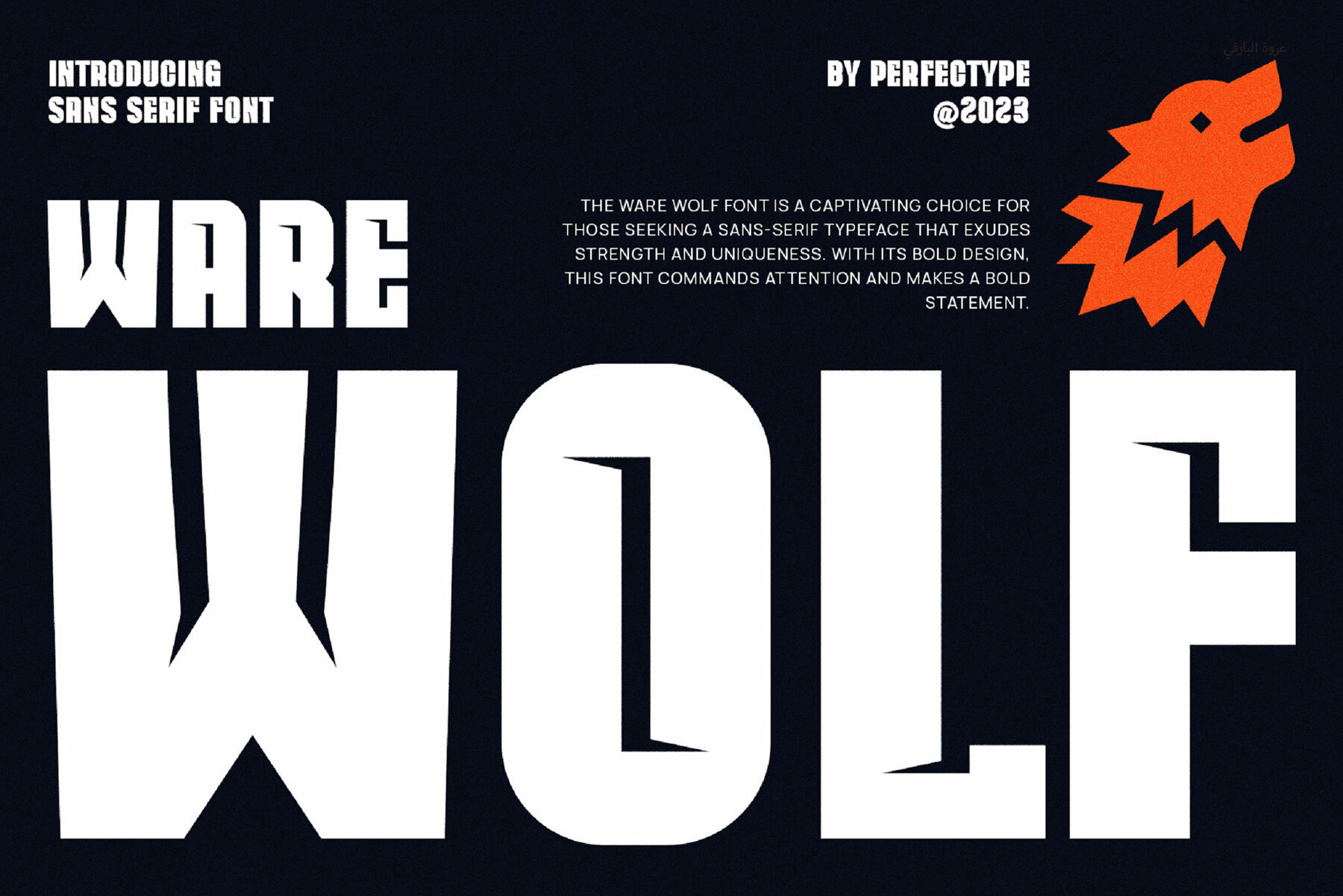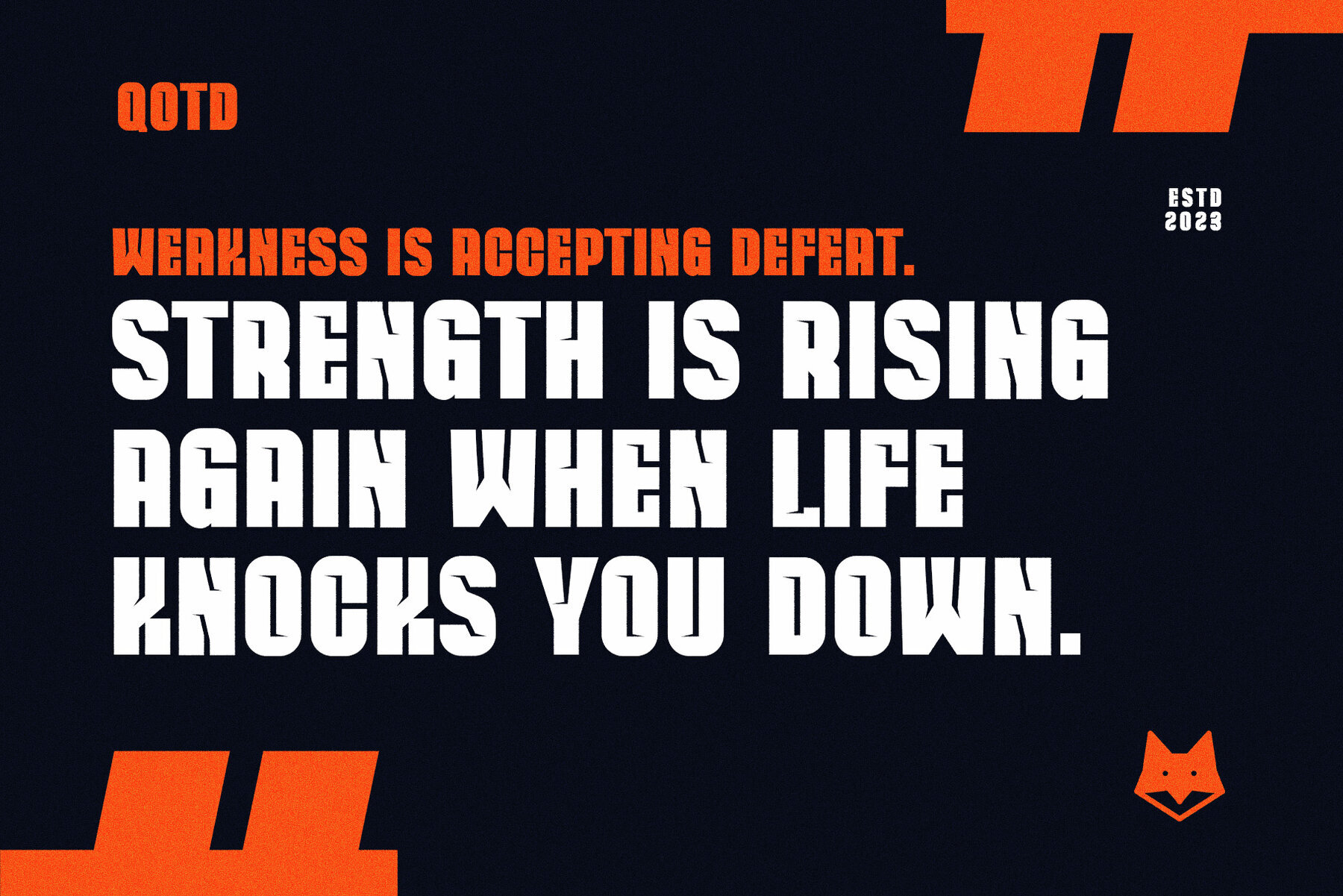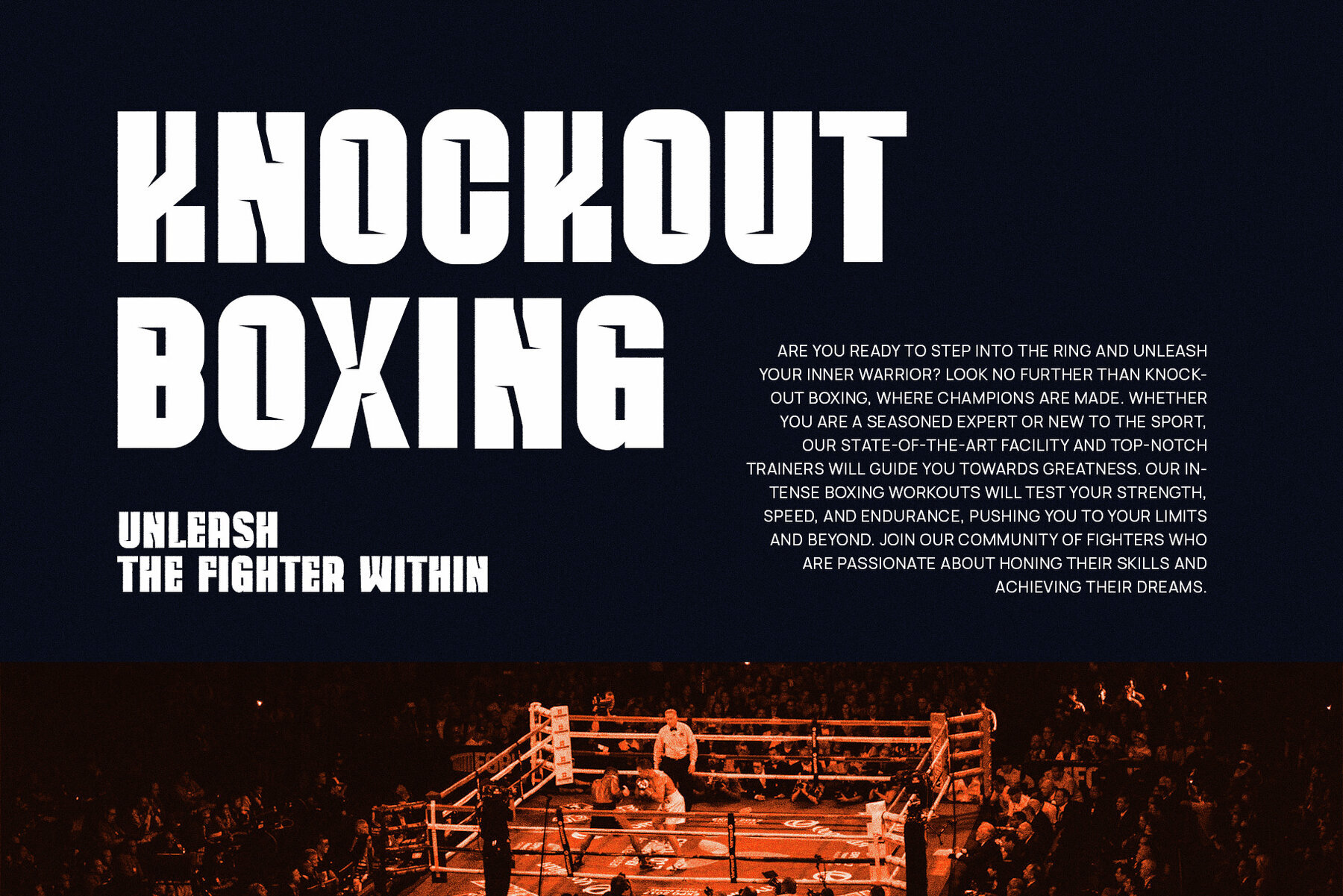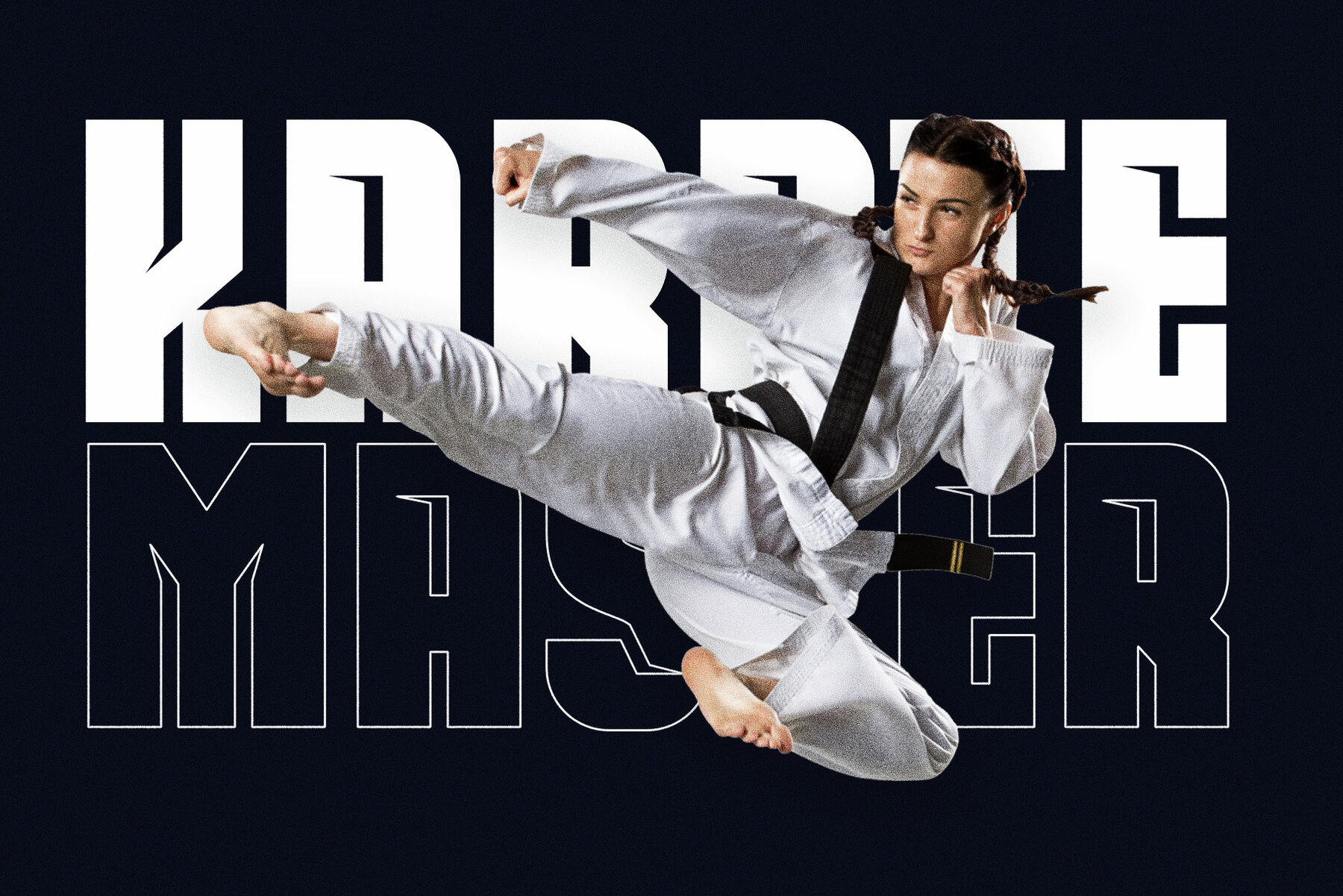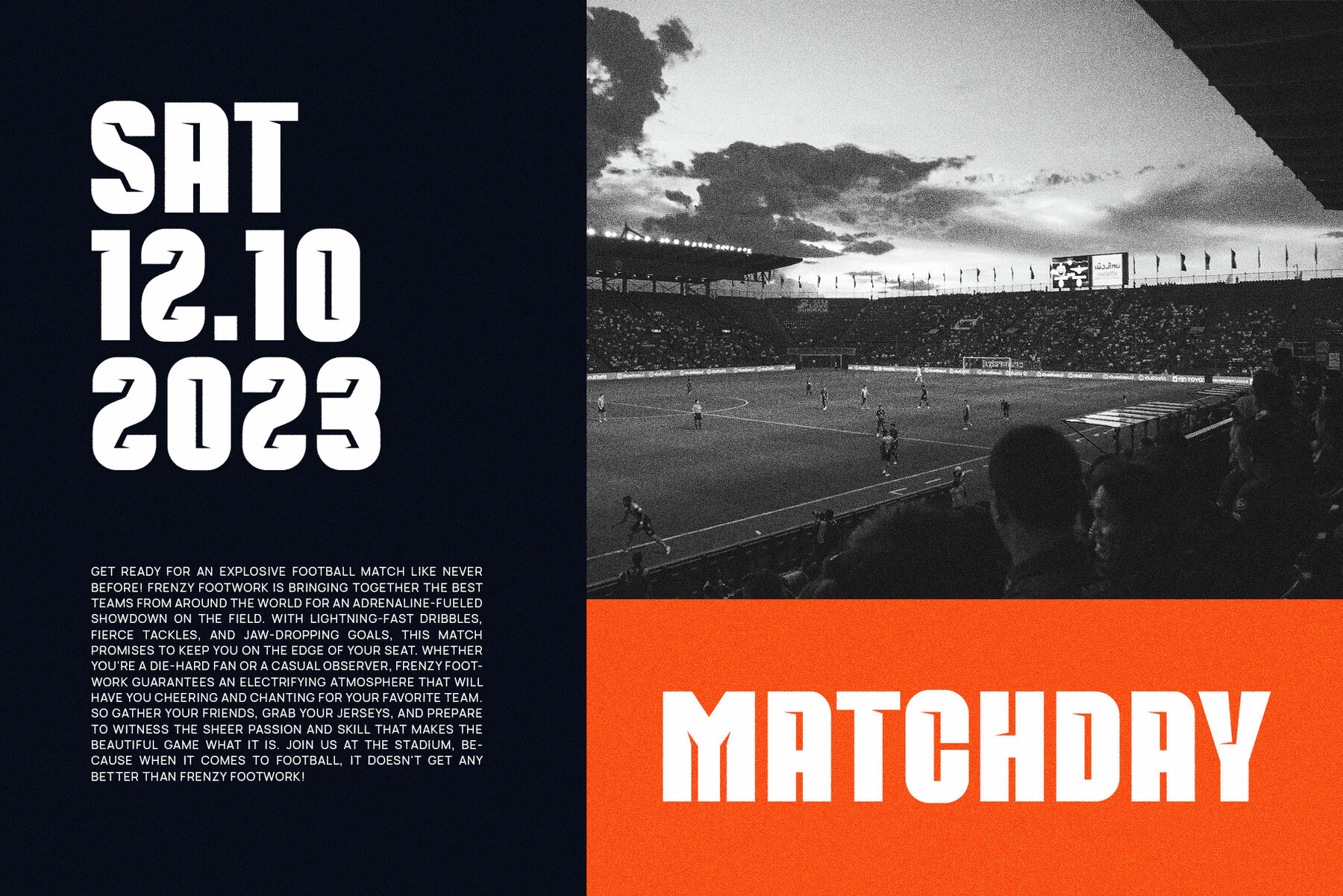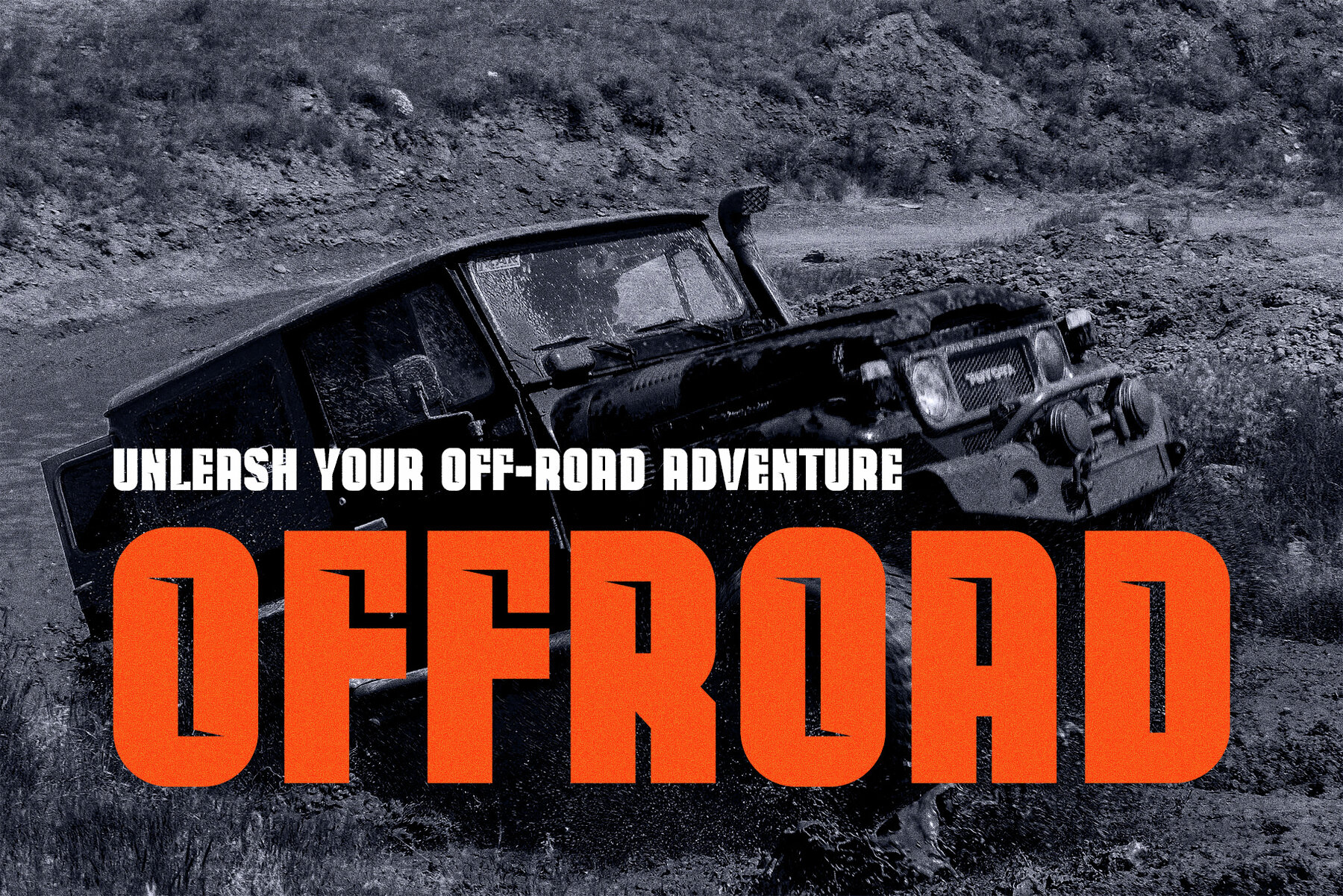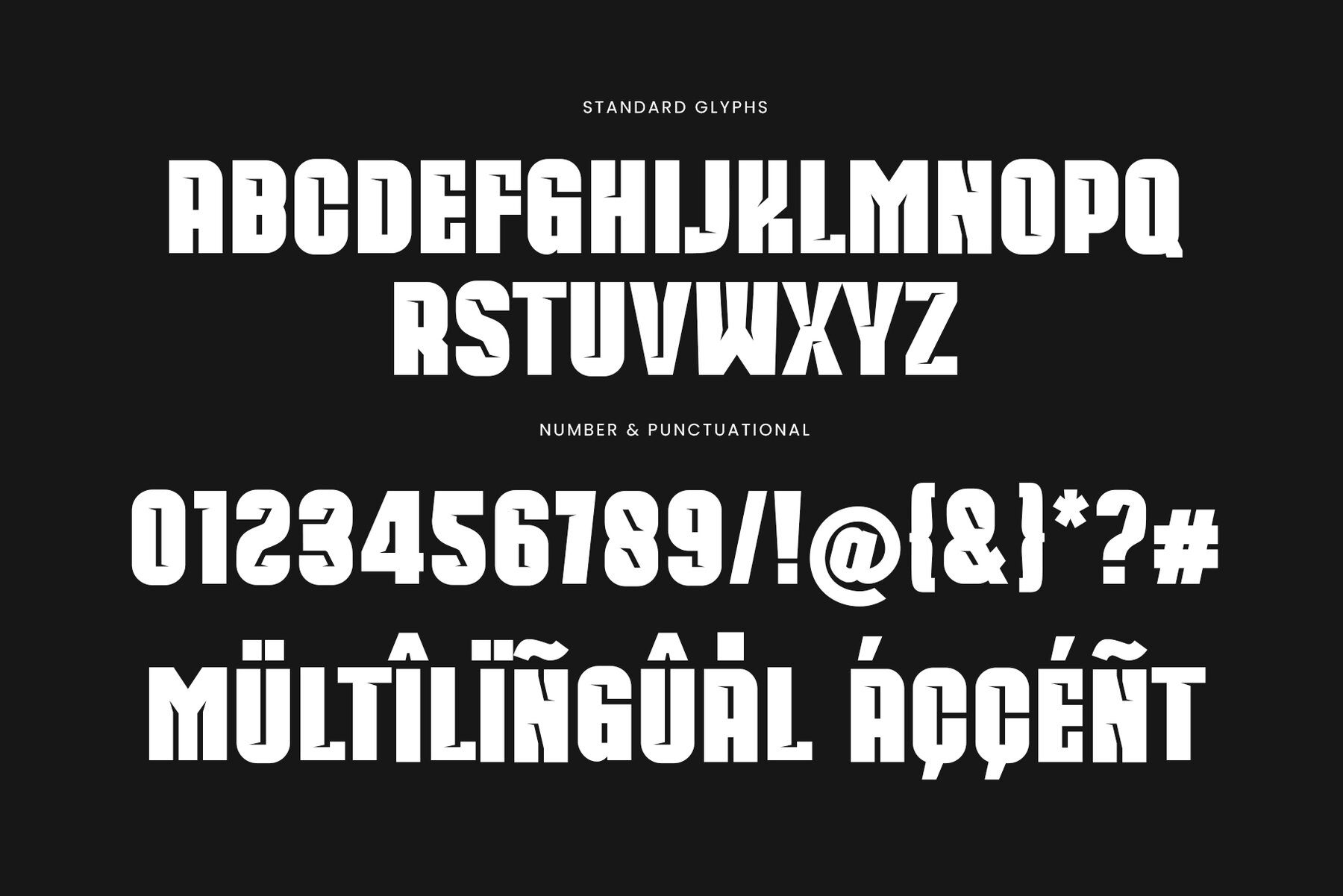
Ware Wolf Font
Ware Wolf Regular
Ware Wolf is a versatile sans serif font designed for high readability and balance. Ideal for a wide range of graphic design projects including brochures, videos, advertising brands, logos, magazines, layout designs, posters, post templates, and games. The font features a meticulous design philosophy ensuring neatness and detailed character formation.
Key Features:
- Character standards
- Numbers & Punctuation
- Accented Characters (Western Europe)